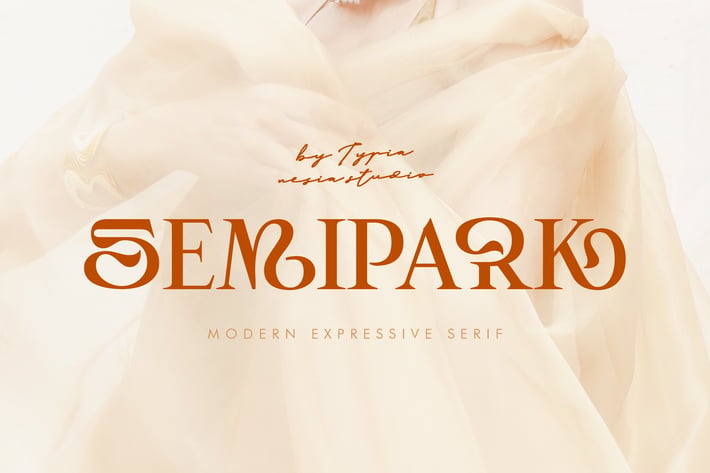
Semipark - Creative and Unique Serif / Logo Font
Introducing Semipark - the font that will make your brand stand out! With its unique and creative letterforms, Semipark is perfect for display/headline usage. Whether you’re creating a logo or branding materials, Semipark will help you make a statement. Its modern design makes it perfect for brands that want to be seen as innovative and forward-thinking. Try Semipark today and see the difference it can make!”
Are you looking for a font that will help your brand stand out? Look no further than Semipark! This modern serif font is perfect for display/headline usage and will help your brand make a statement. With its unique and creative letterforms, Semipark is perfect for logos and branding materials. Its explorative design makes it perfect for brands that want to be seen as innovative and forward-thinking. Try Semipark today and see the difference it can make!